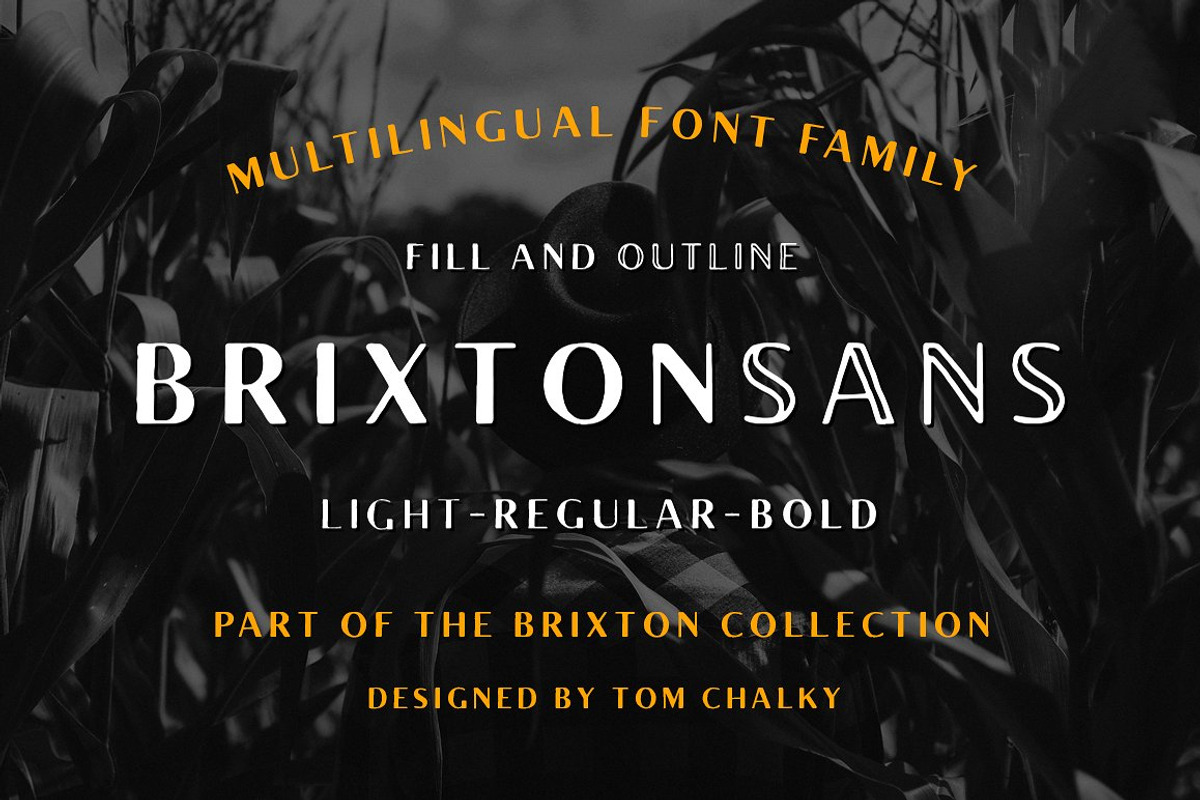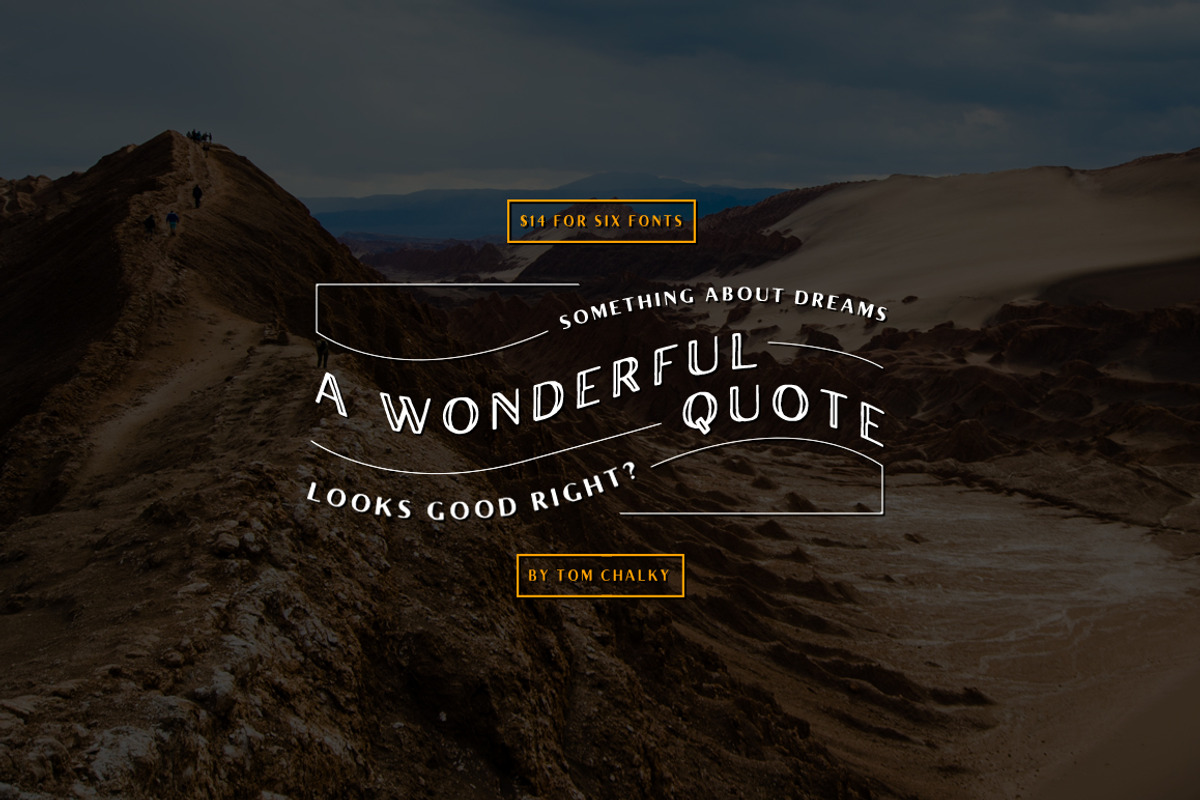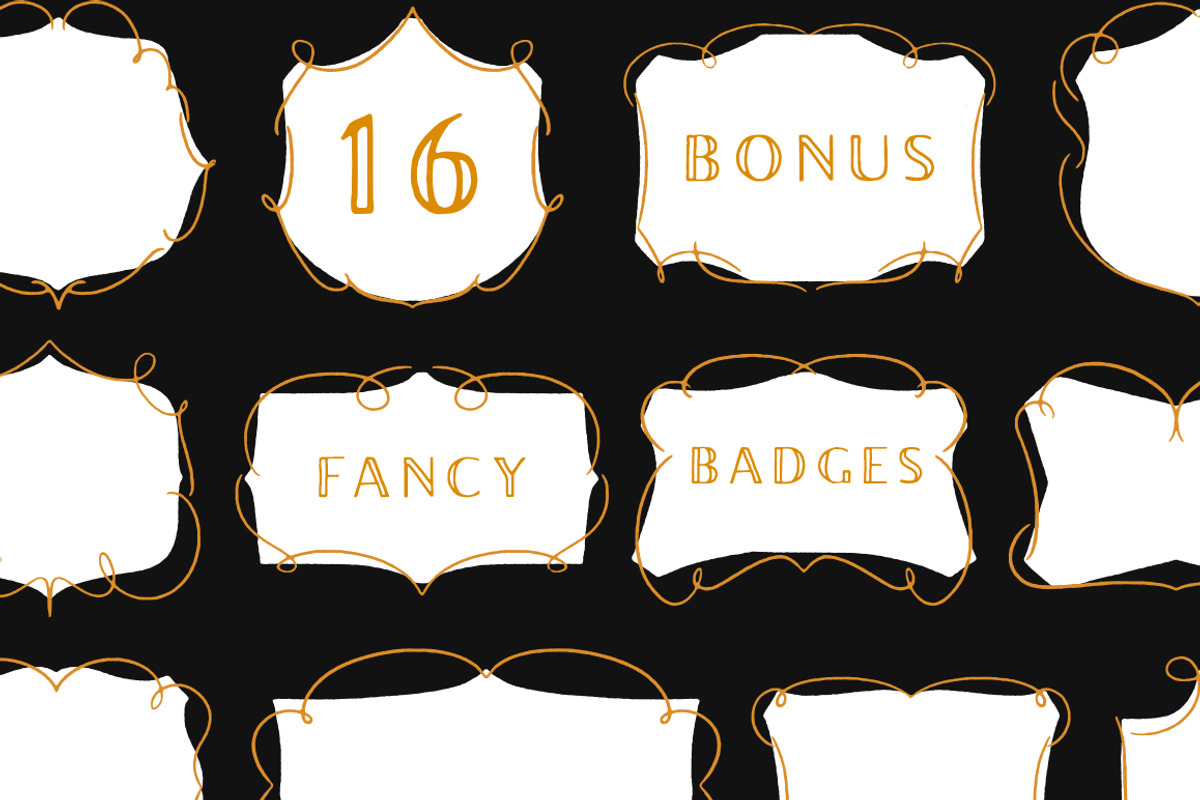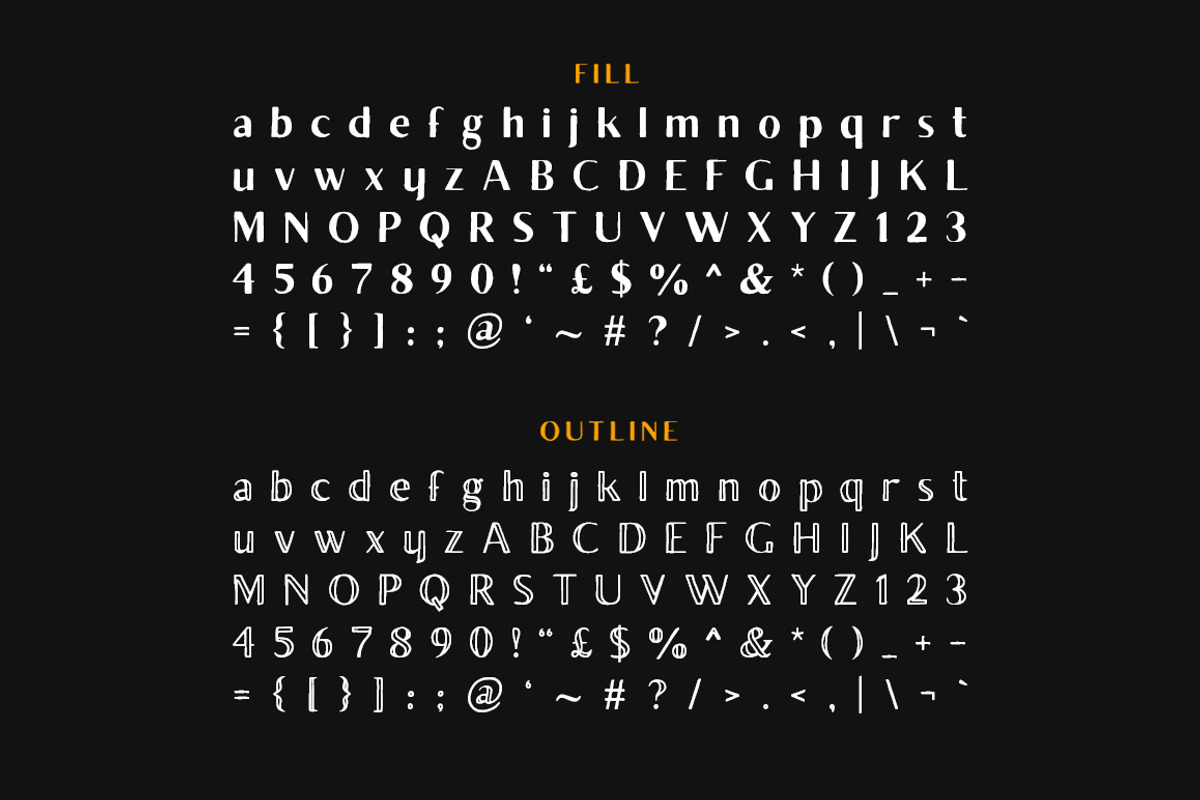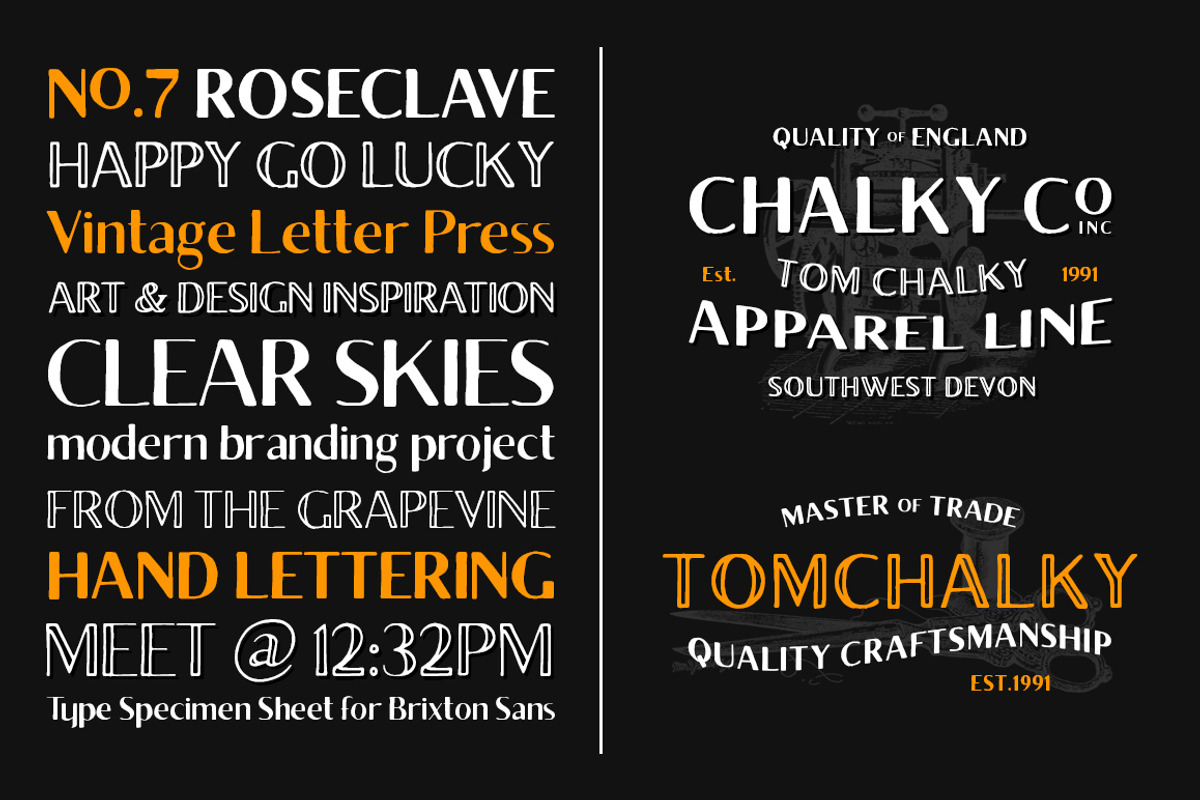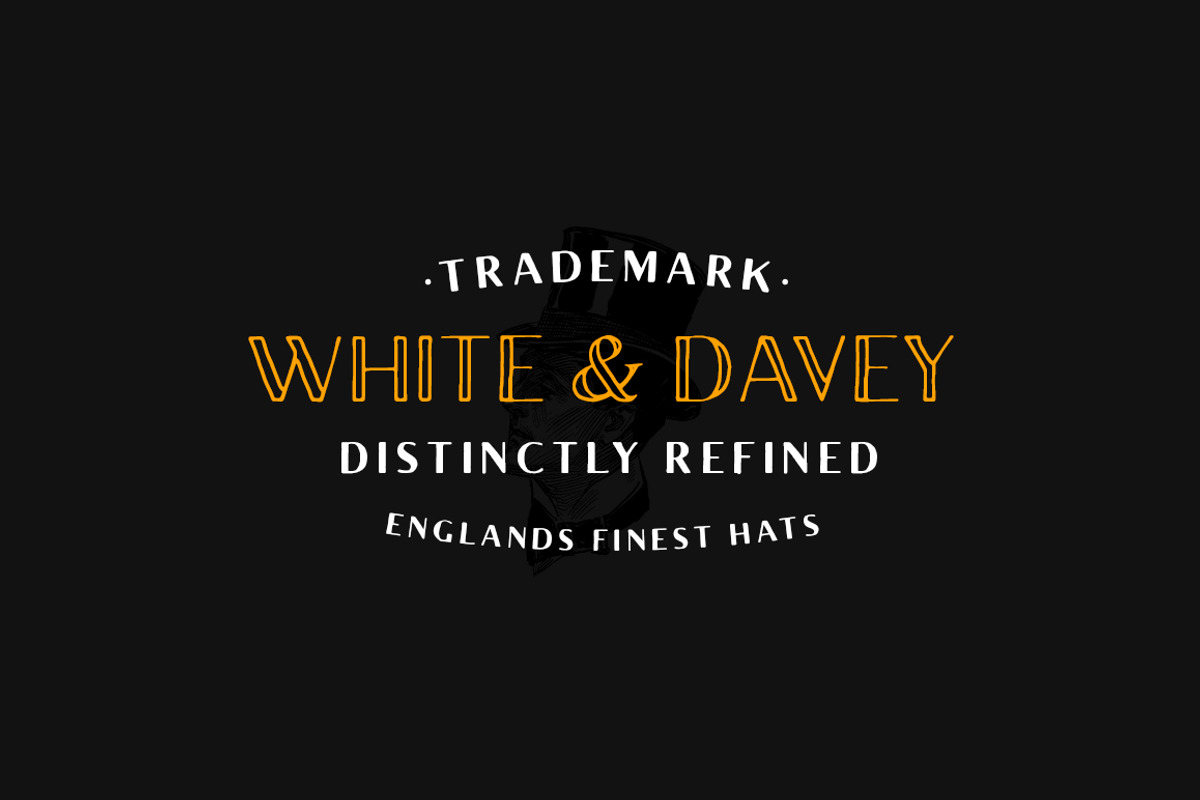
Brixton Sans (6 Fonts + Extras)
Brixton Sans (6 Fonts + Extras) by Tom Chalky is a font selected for branding, posters, packaging, typography.
- Let's not forget, the 16 decorative badges and shields that I have included!
- The family also features OpenType kerning that automatically adjusts the spaces between the most popular letter combinations for a professio
Brixton Sans (6 Fonts + Extras) by Tom Chalky fits naturally into Branding, posters, packaging, typography.